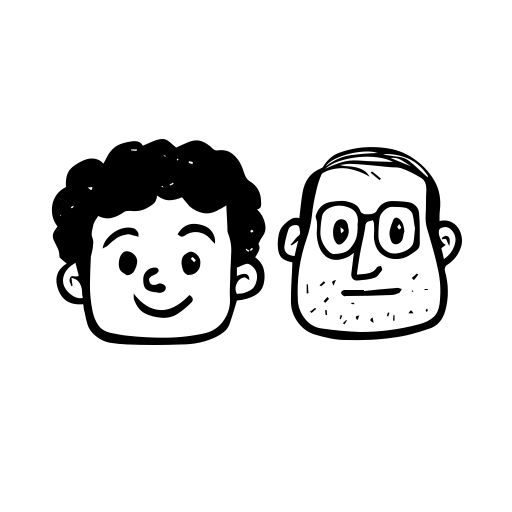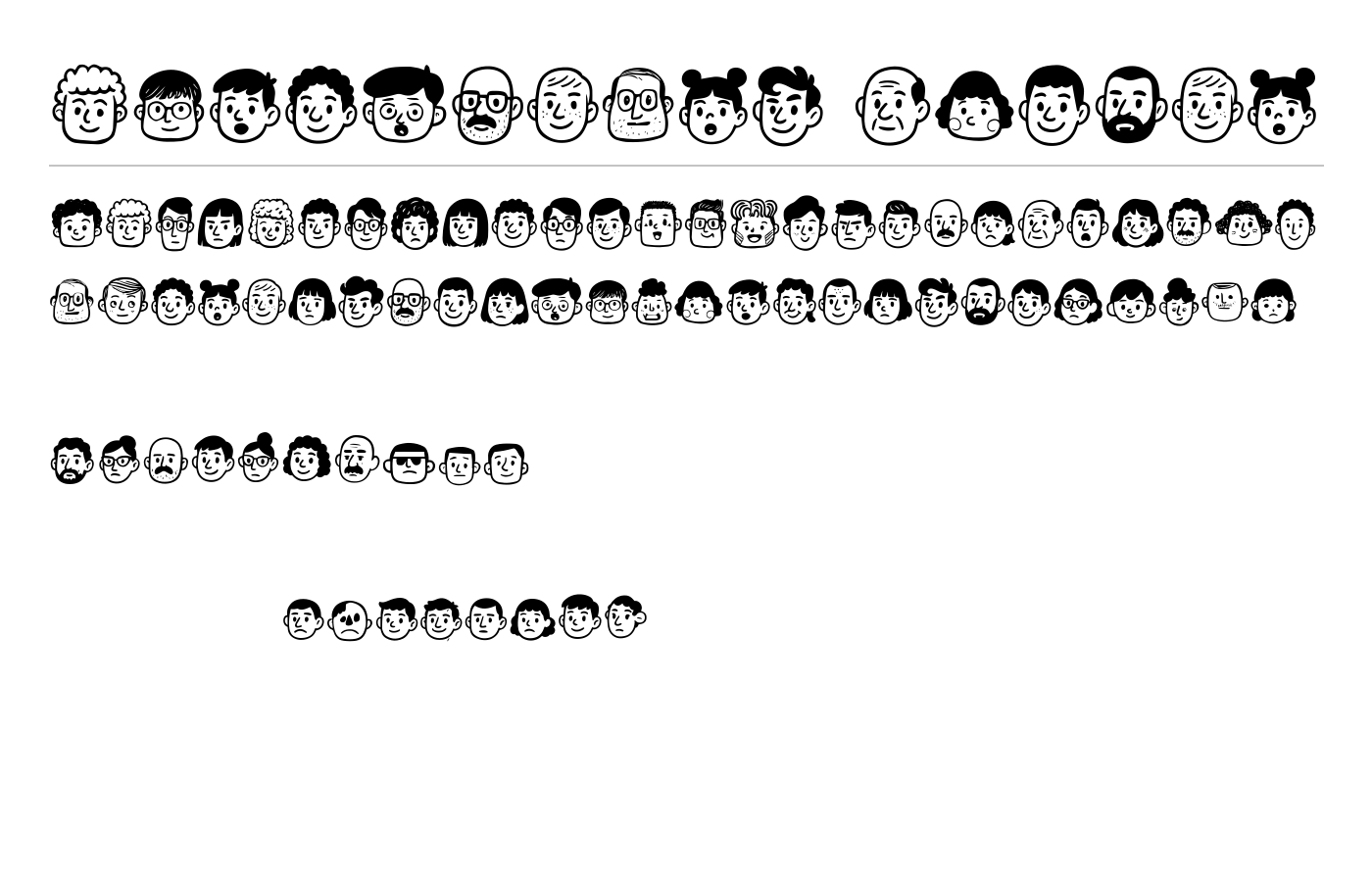
Blockheads United is a playful, hand-drawn symbol font featuring a wide variety of simple, cartoon-style faces that convey diverse emotions and personalities. Its bold, rounded shapes and clean lines give it a friendly, approachable feel, making it perfect for fun branding, casual designs, and creative projects that want to emphasize character and inclusivity. This font works well for posters, social media graphics, children's products, and any context that needs a unique, expressive touch.
Blockheads United Font